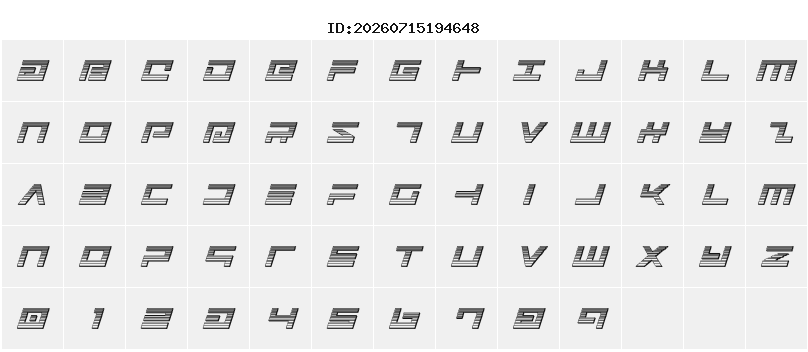
About Avenger Chrome Italic.ttf
Avenger Chrome Italic.ttf is a modern, elegant sans-serif font designed for ultimate readability and visual harmony. Perfect for branding, headlines, web design, and print materials.